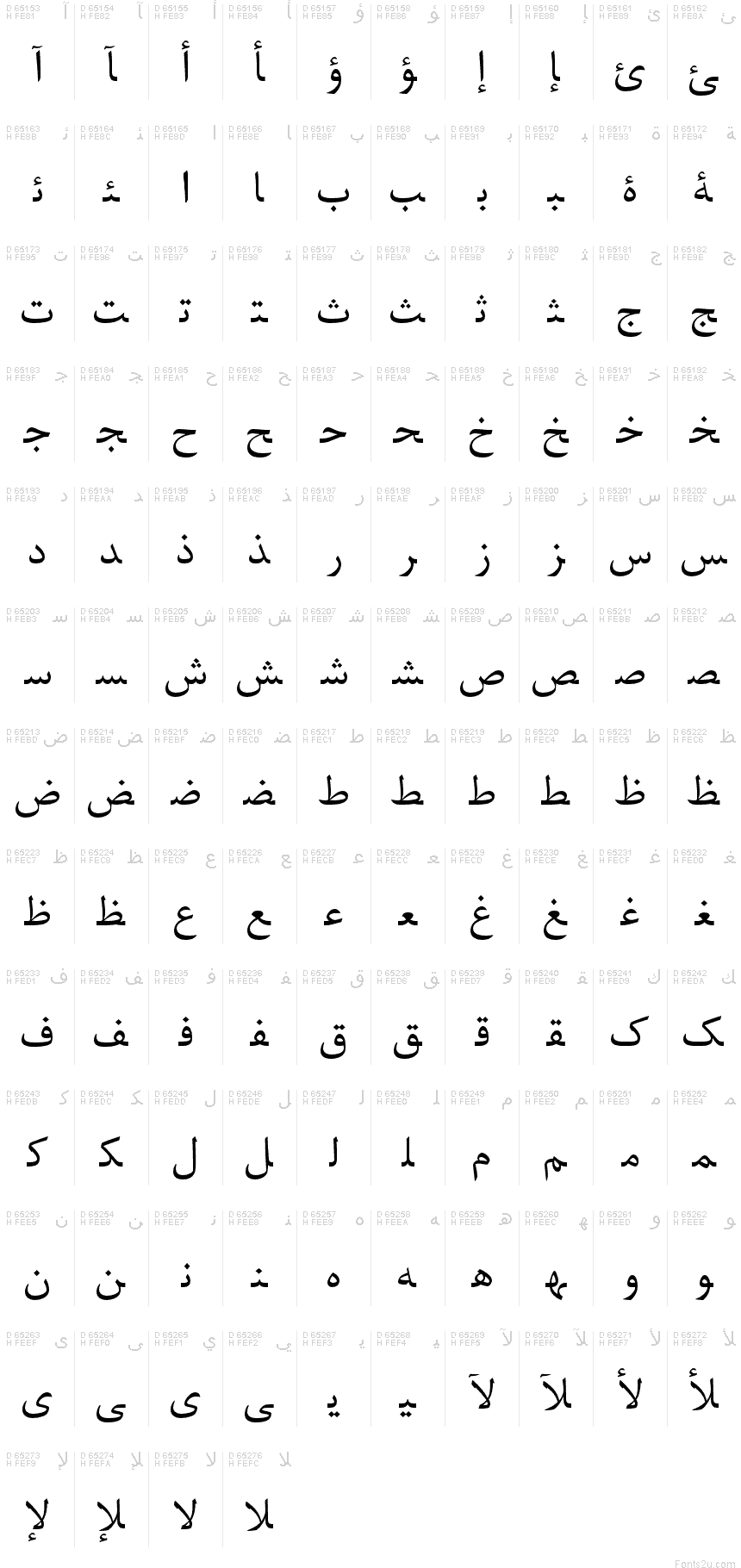
B Nazanin by Borna Rayaneh is a free Arabic text font with the poised, bookish character of traditional Persian typography. Its rounded forms and changing stroke widths give the writing a smooth, settled flow. Its details feel formal rather than ornate.
Publishing is its clearest setting, especially for Persian books, cultural journals, and educational materials. It also suits museum graphics and heritage event programs with a calm, literary voice. Across these uses, flowing joins and measured proportions connect the lettering to sustained reading and print tradition.